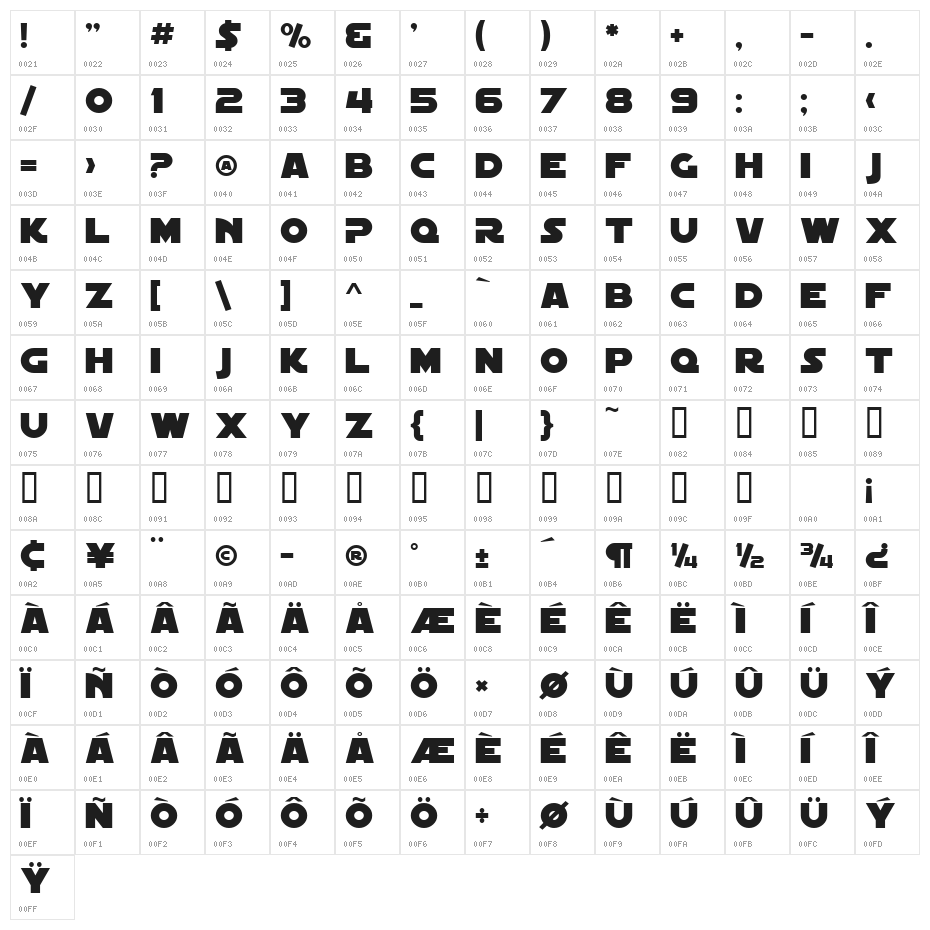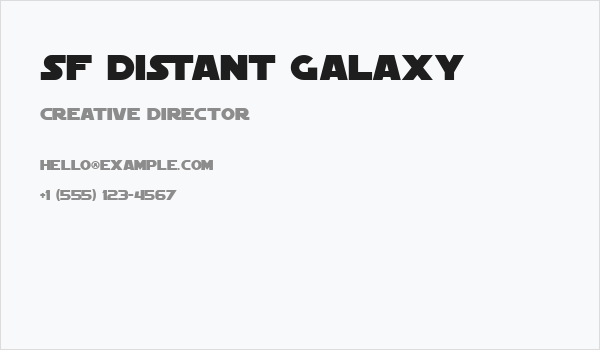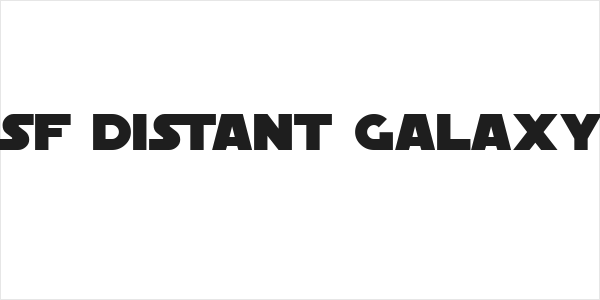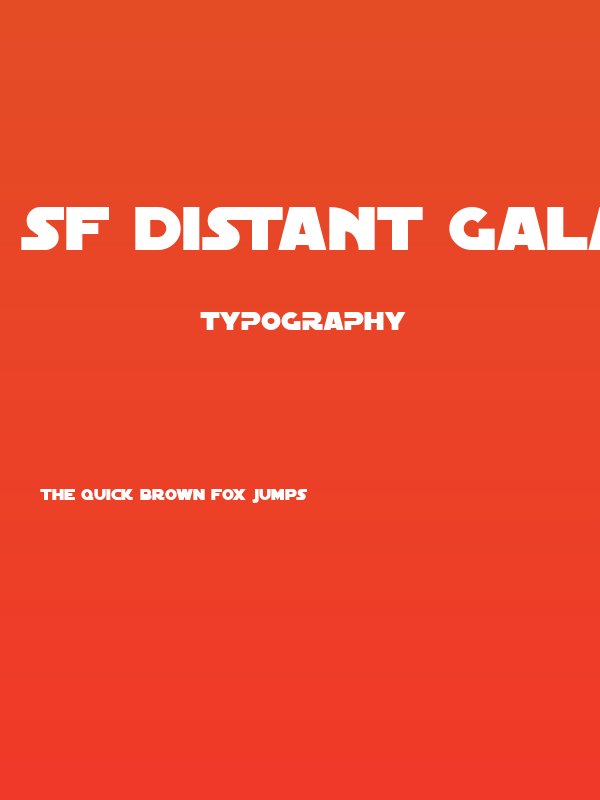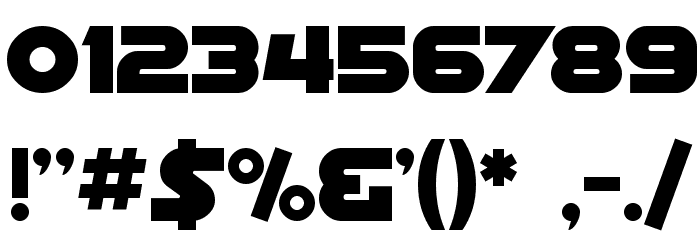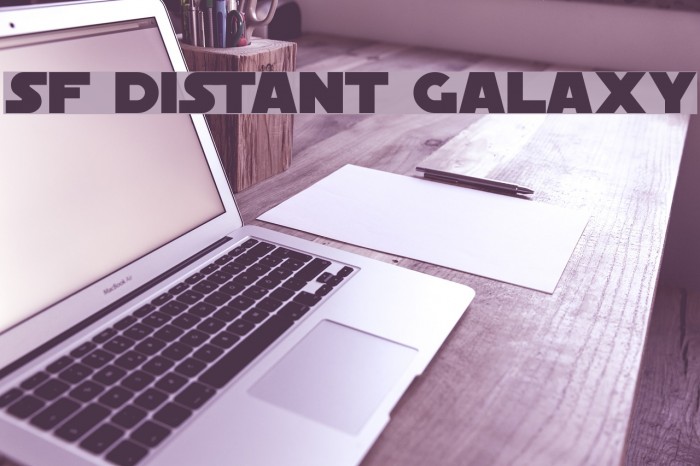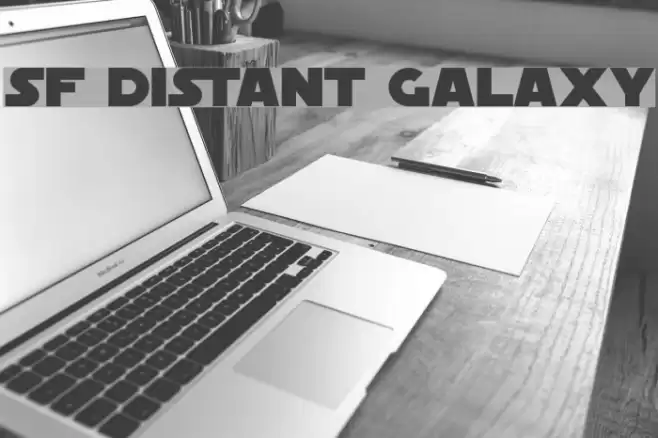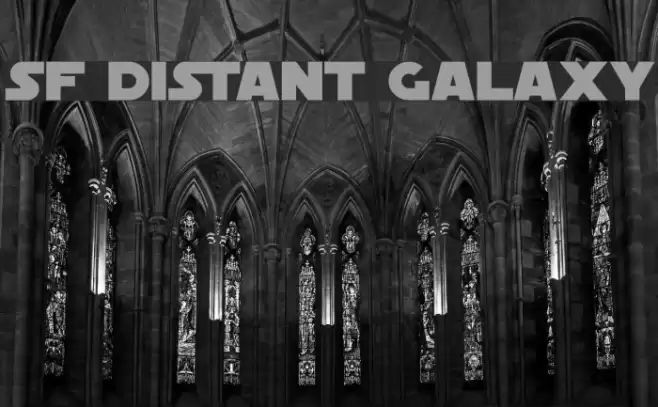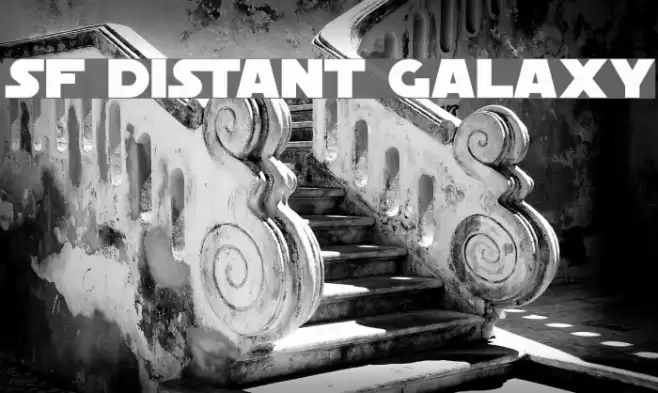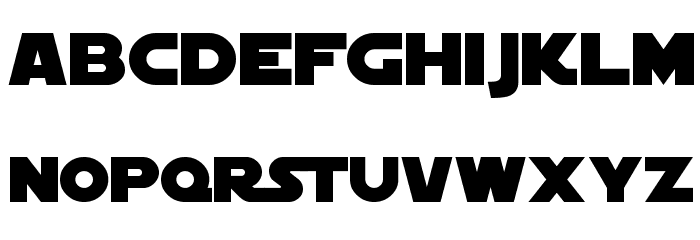
SF Distant Galaxy Font
SF Distant Galaxy Description
This font features a bold, futuristic design with strong geometric shapes and a distinct sci-fi aesthetic. The characters are wide and blocky, with a uniform thickness that gives them a solid, impactful appearance. The uppercase letters are particularly striking, with angular cuts and sharp edges that enhance the modern feel. The numbers and special characters maintain this cohesive style, making the font suitable for projects that require a bold, attention-grabbing look. Its unique style is reminiscent of space-themed designs, making it ideal for creative projects that aim to evoke a sense of adventure and innovation.
| Width | Expanded |
| Overall Style | Futuristic |
| Proposed Projects | Ideal for sci-fi movie posters, video game titles, futuristic branding, and tech-related designs. |